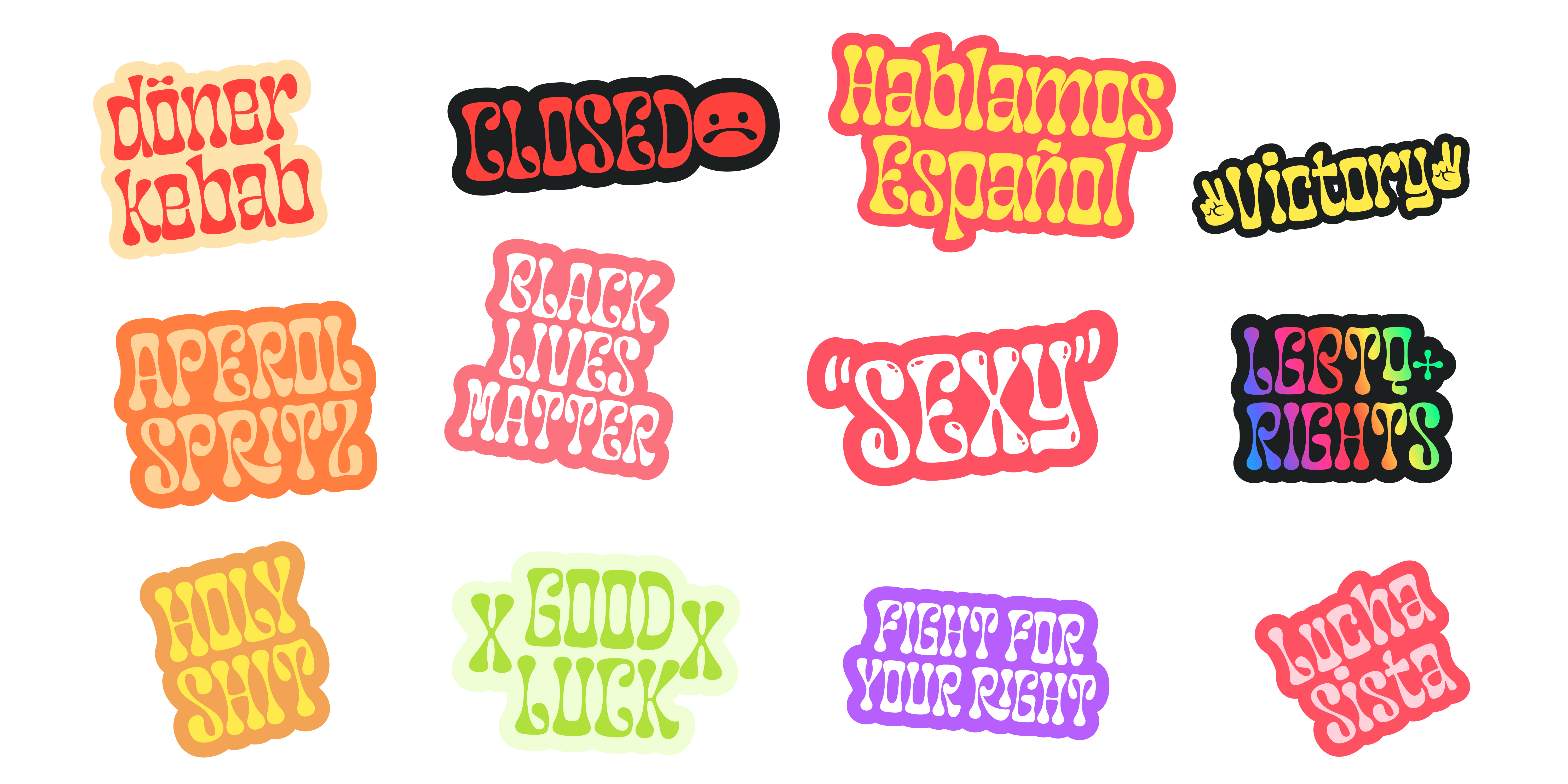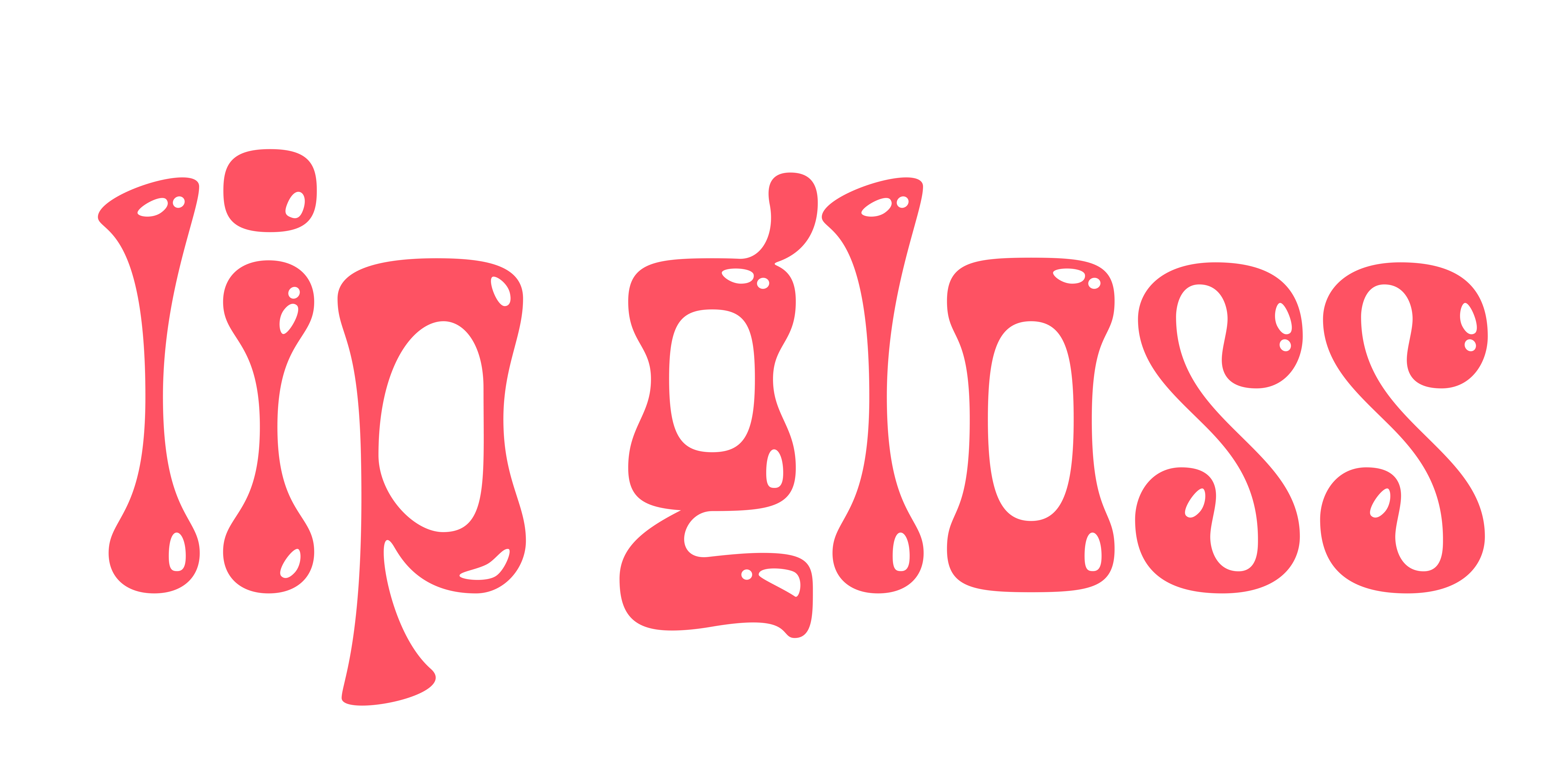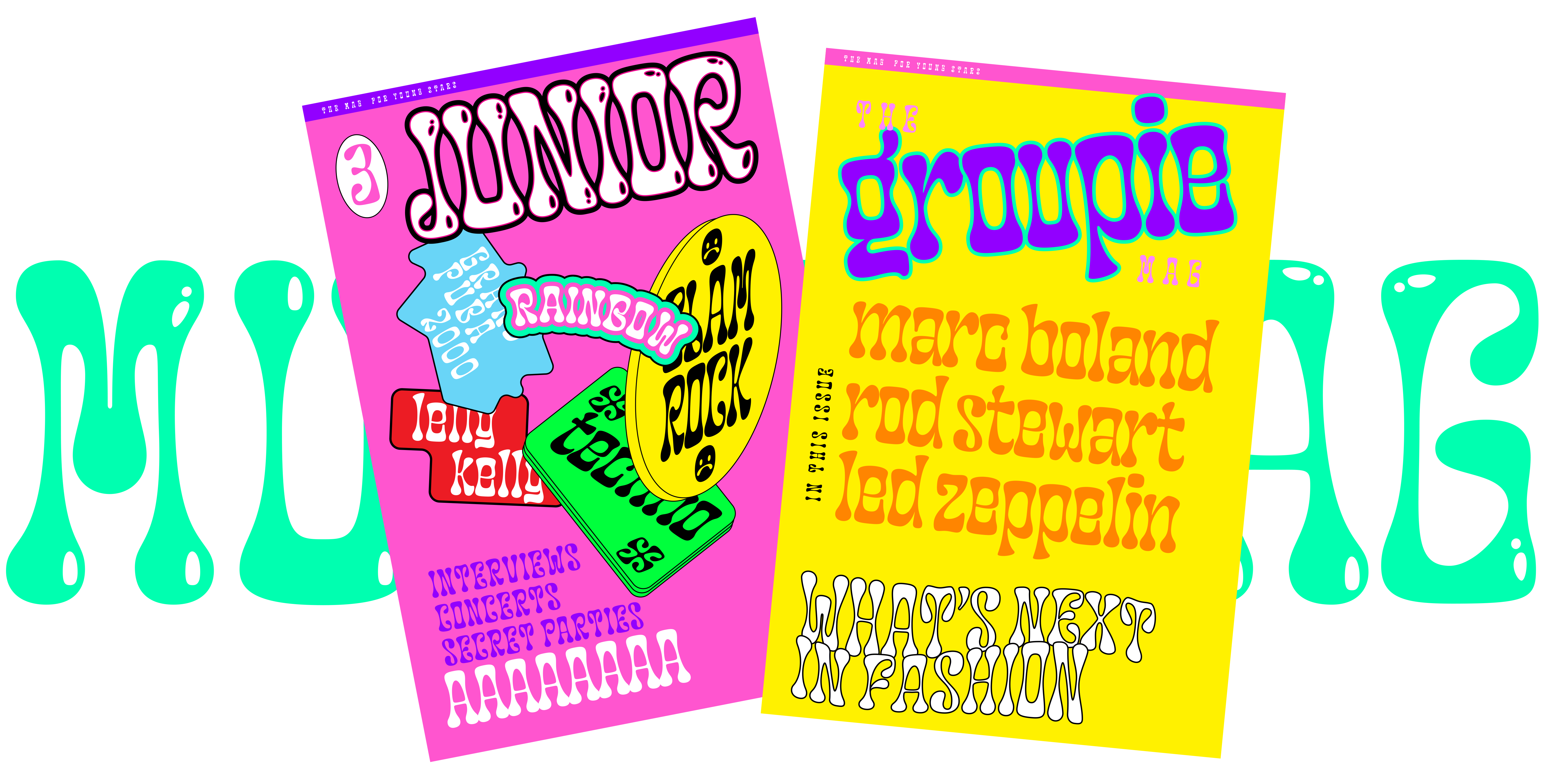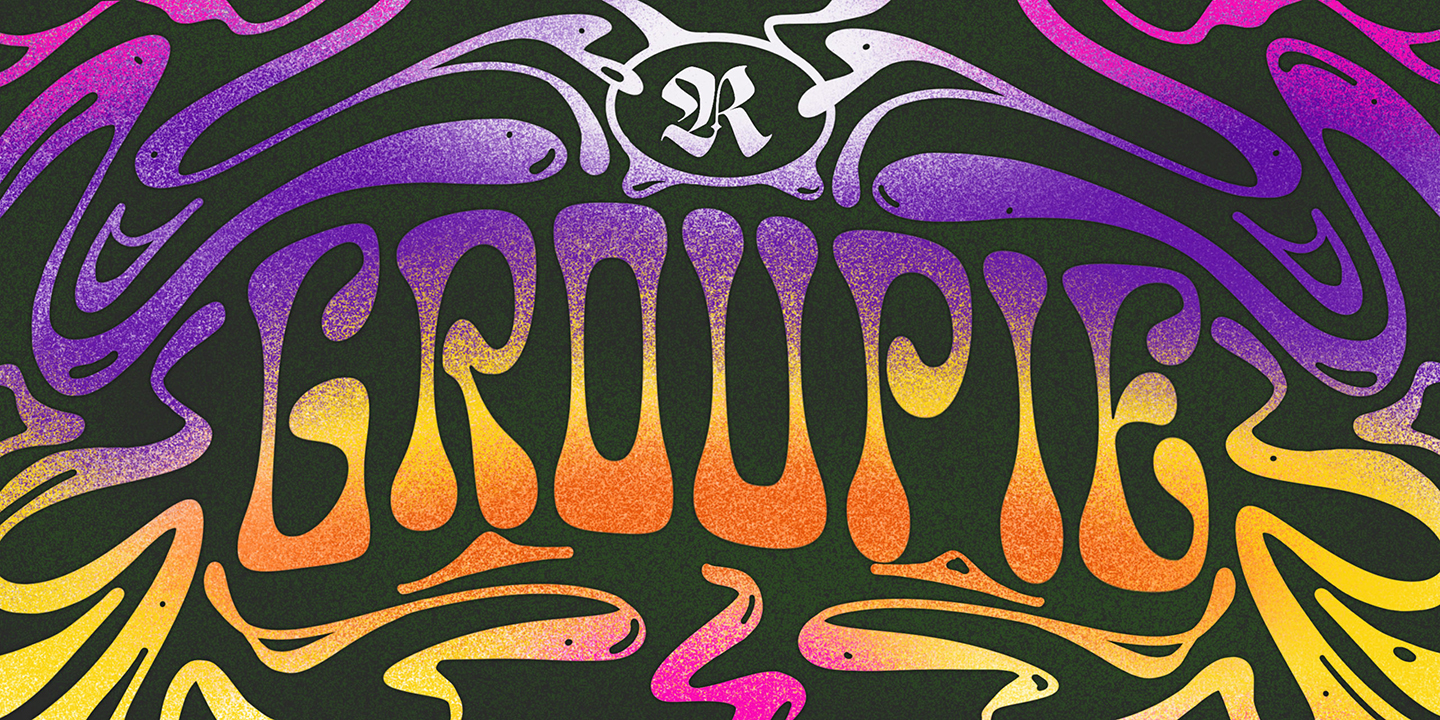
GROUPIE
Psychedelic display font
Groupie
Designed by Resistenza Type FoundryThe idea was to mix liberty lettering with 70’s psychedelic posters and dedicate a font to Groupies. Check out the alternative glyphs and icons included on the opentype panel.